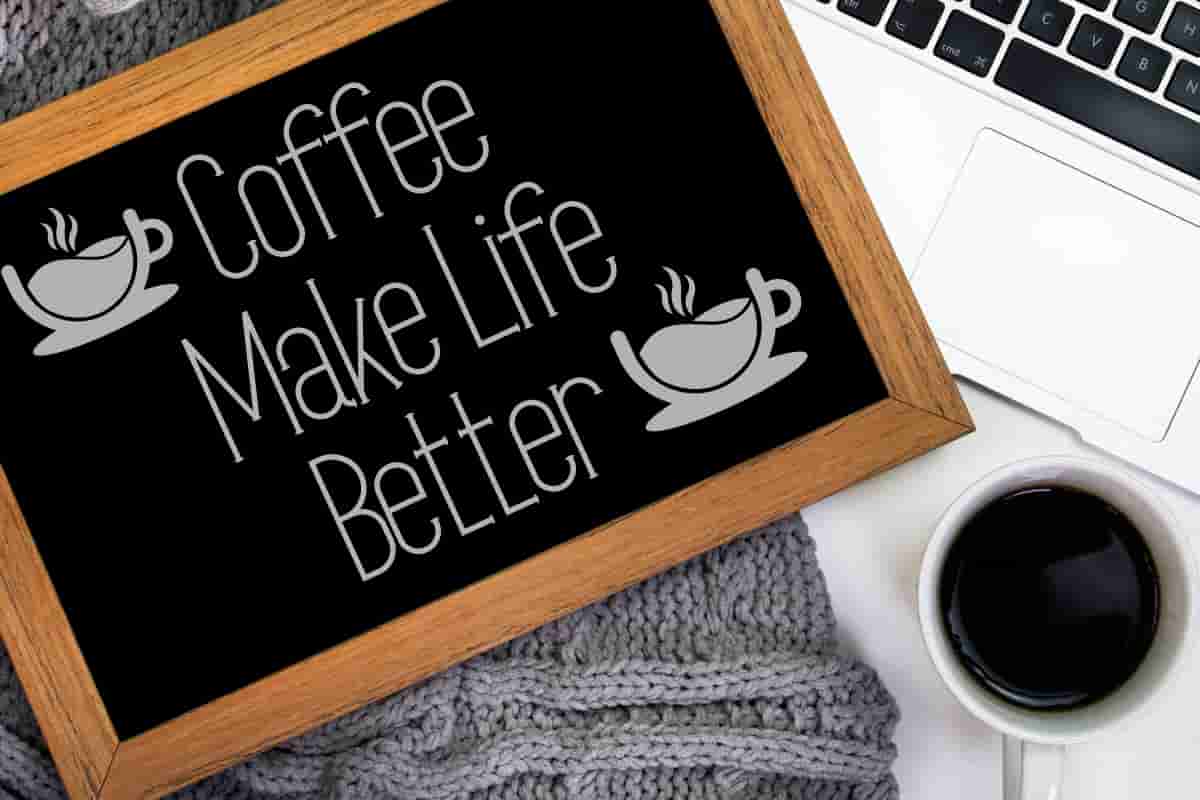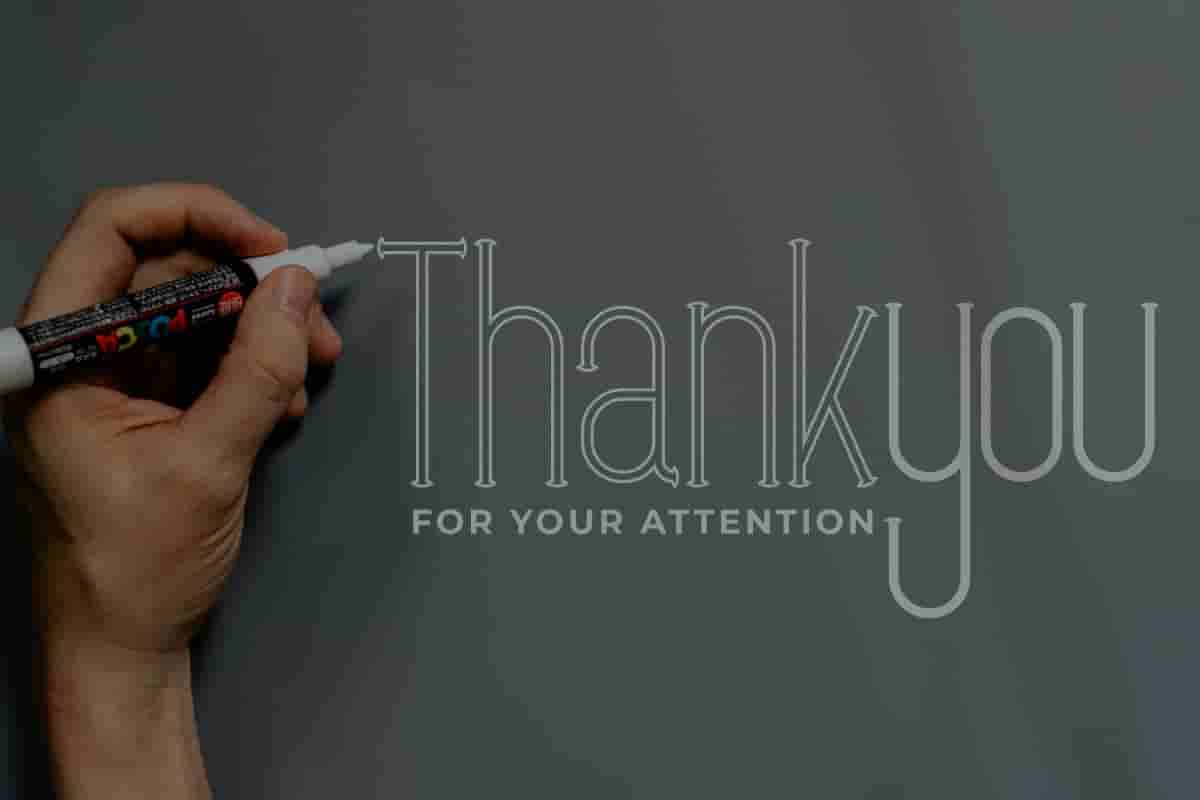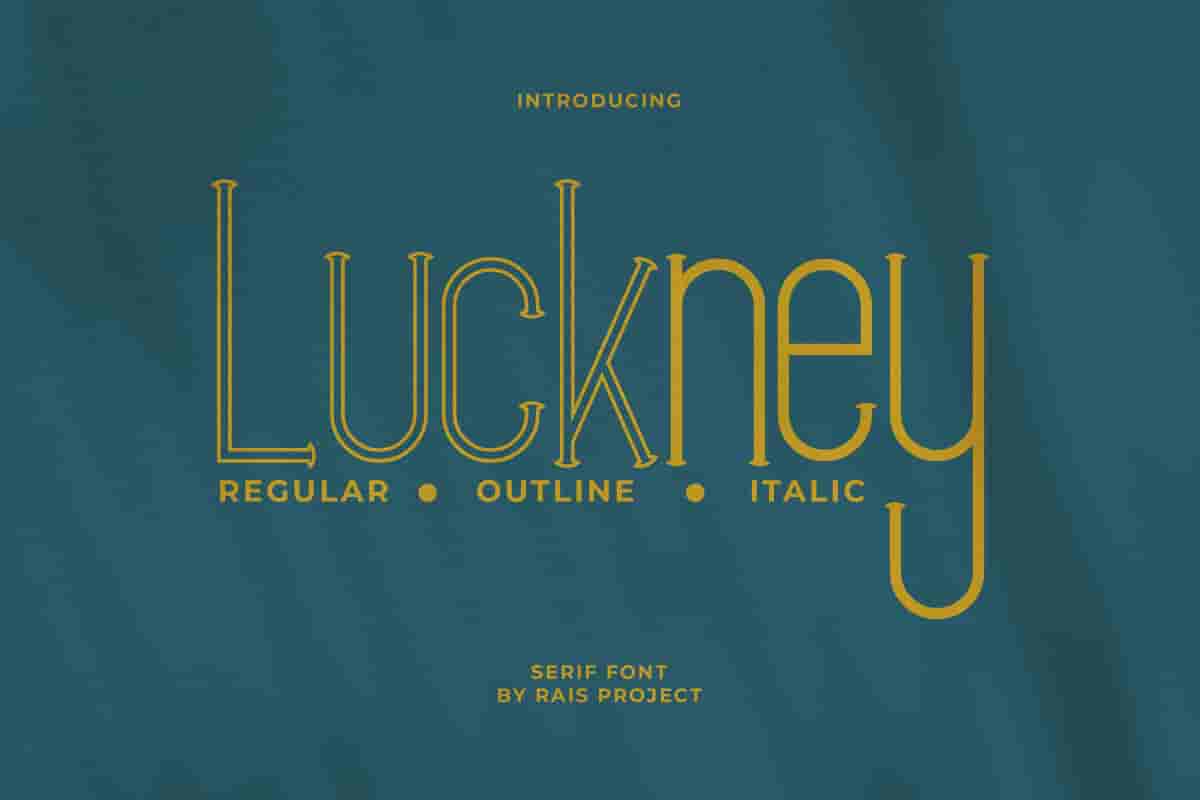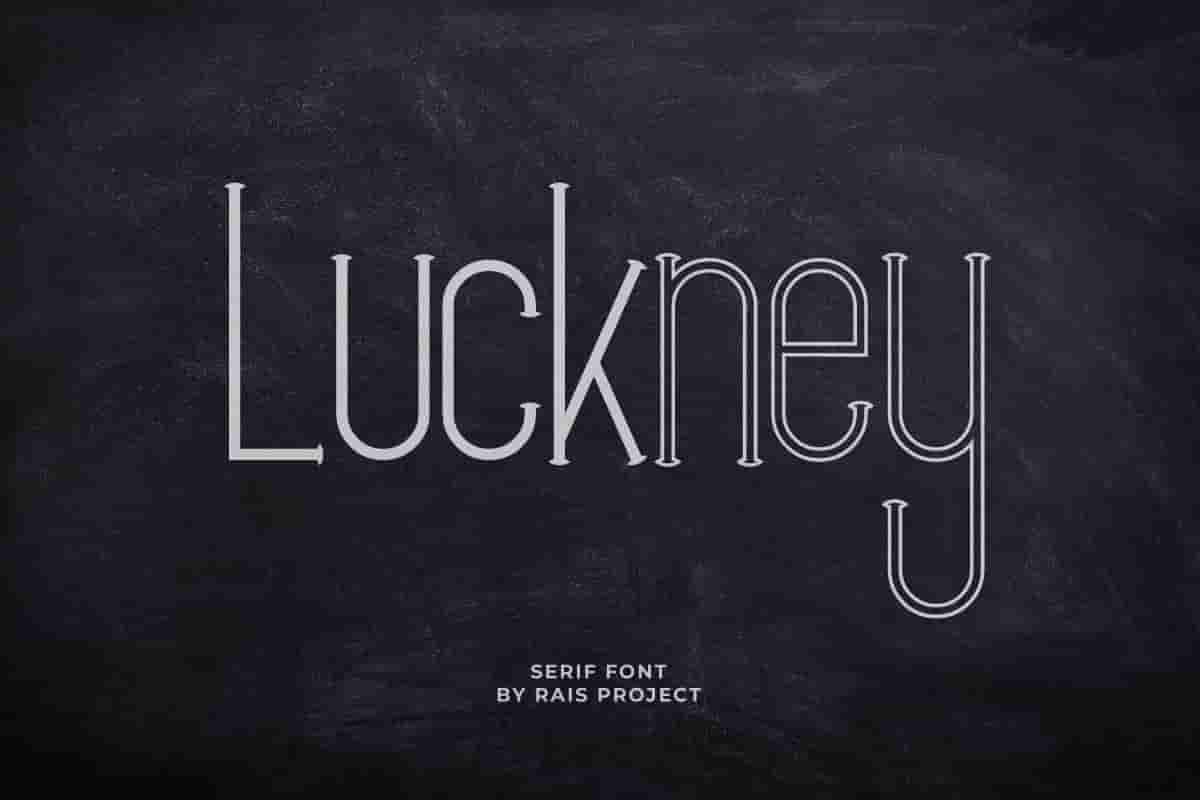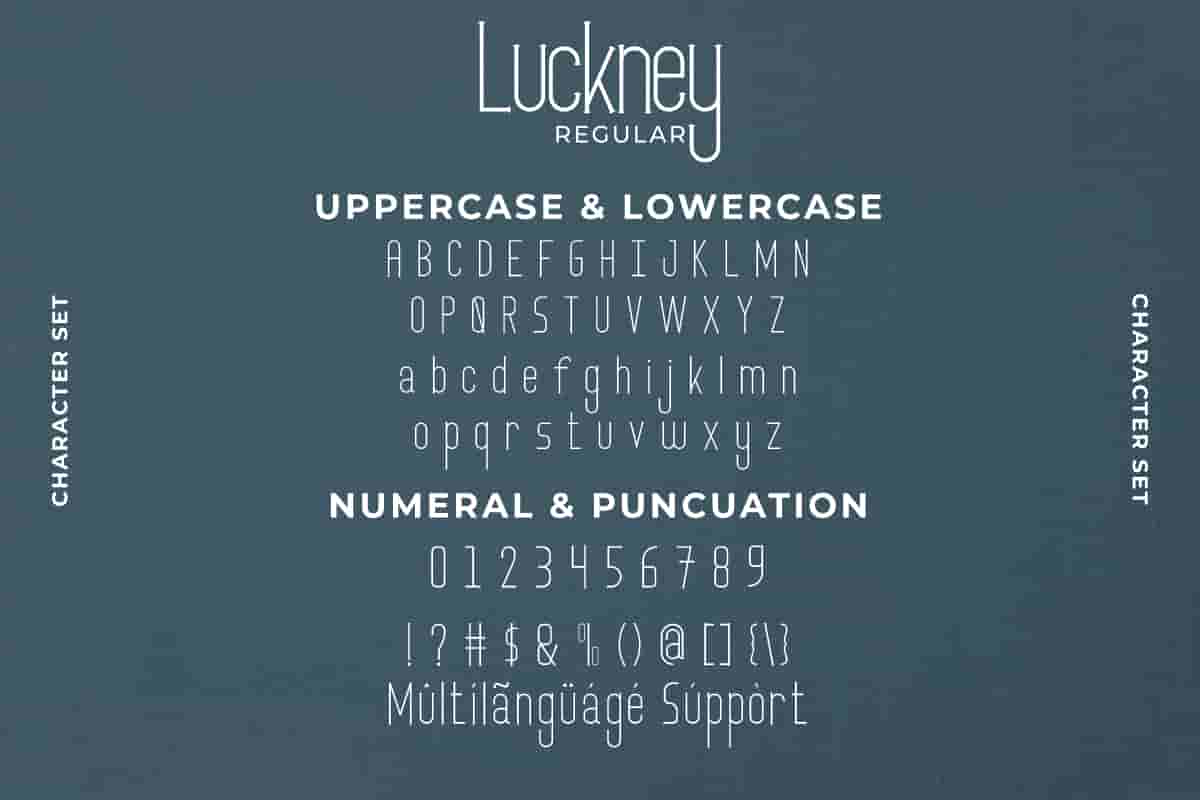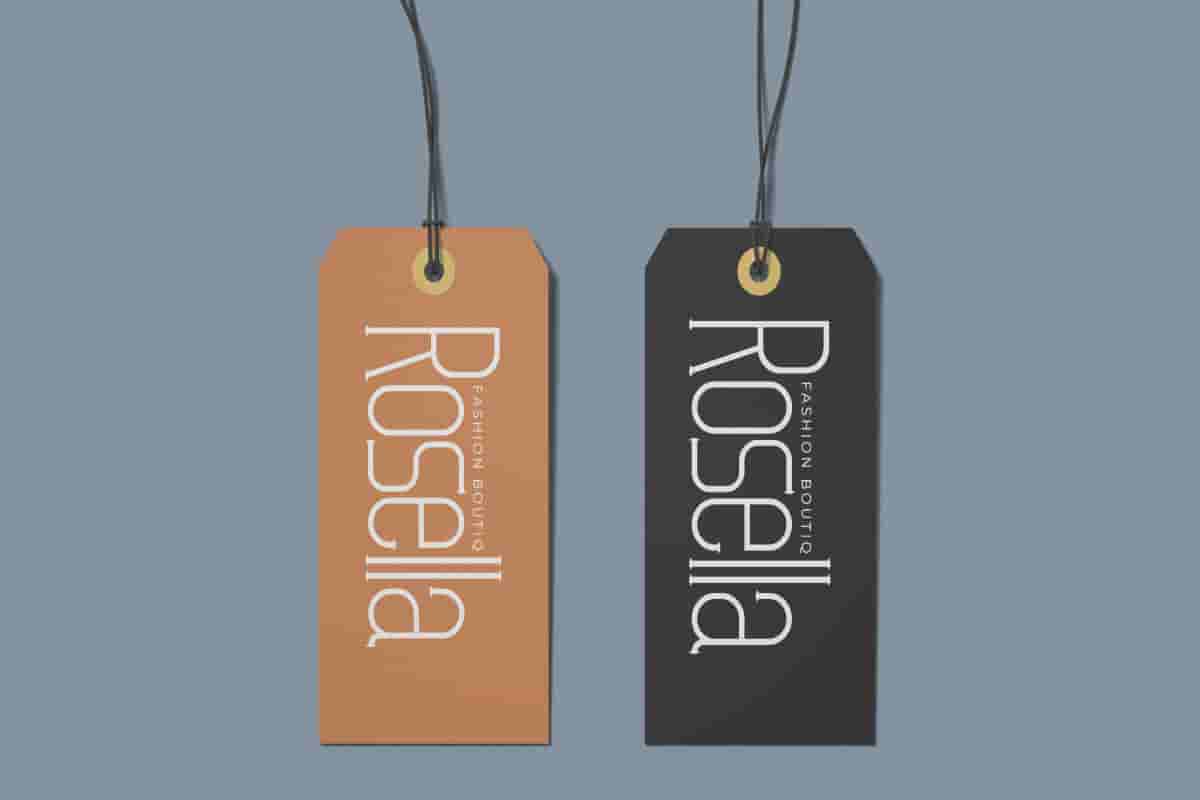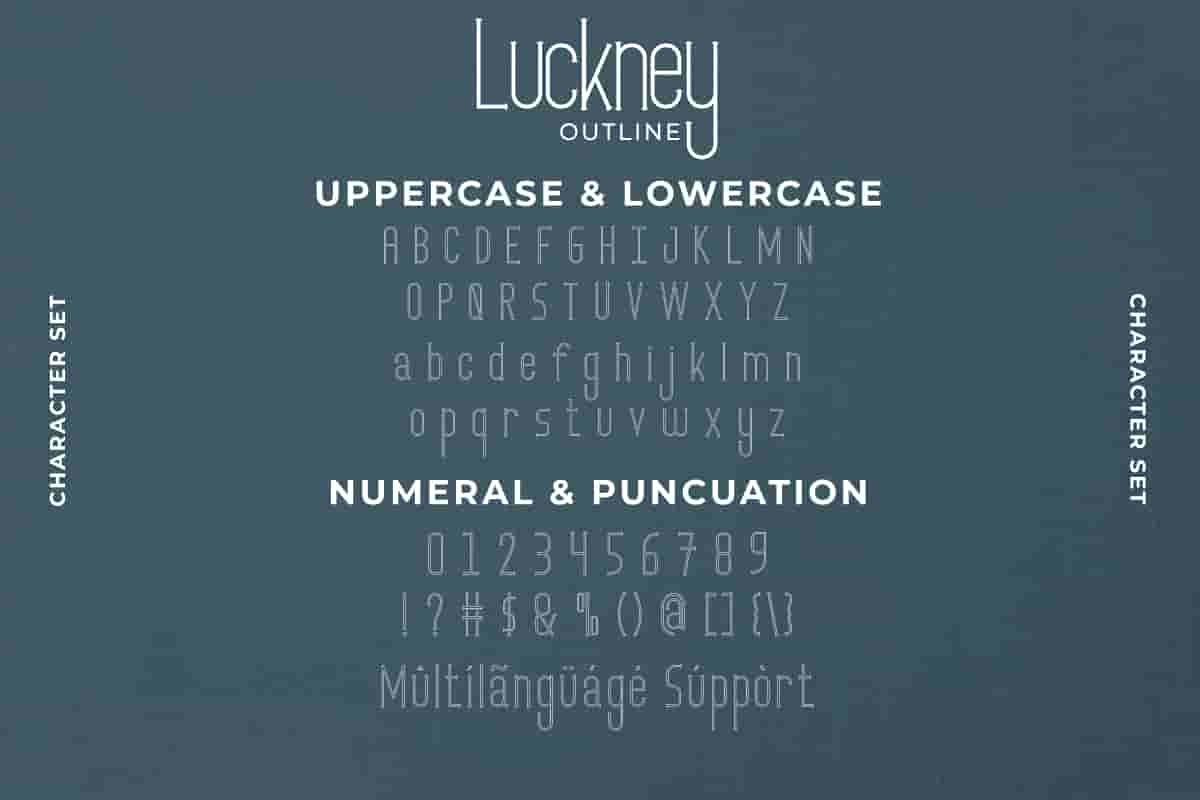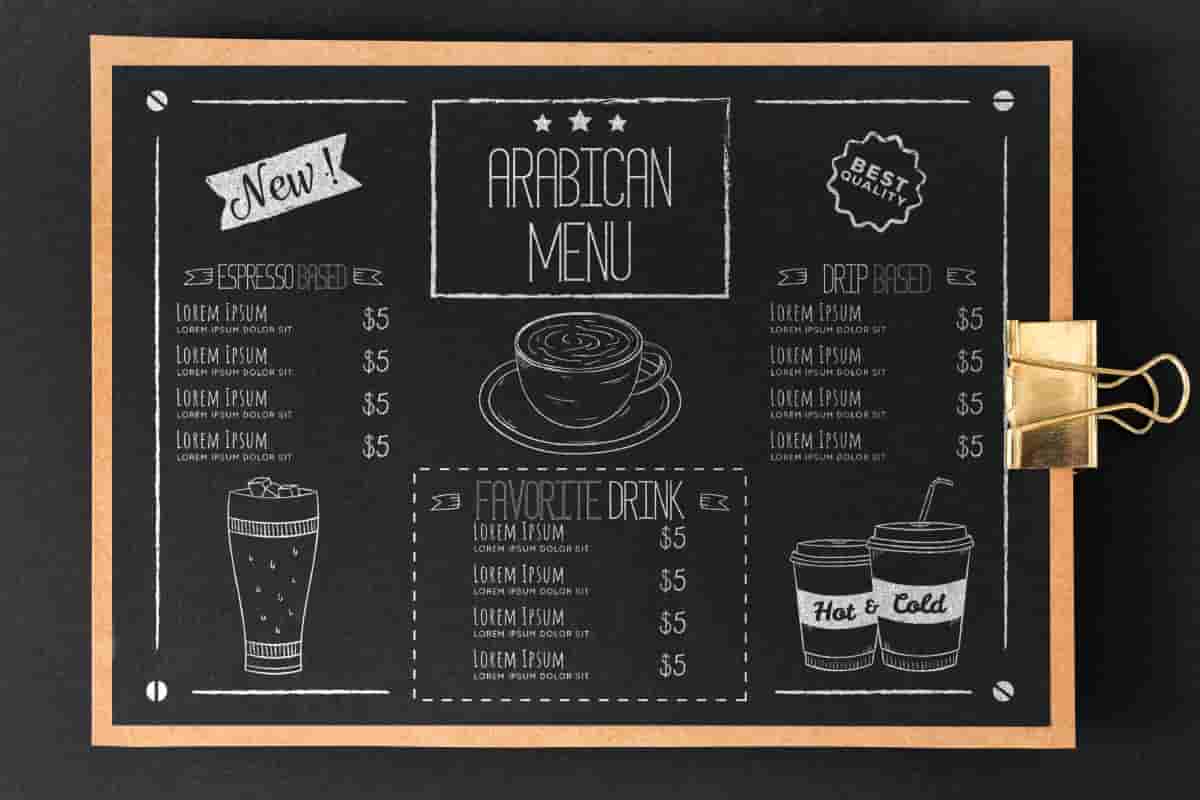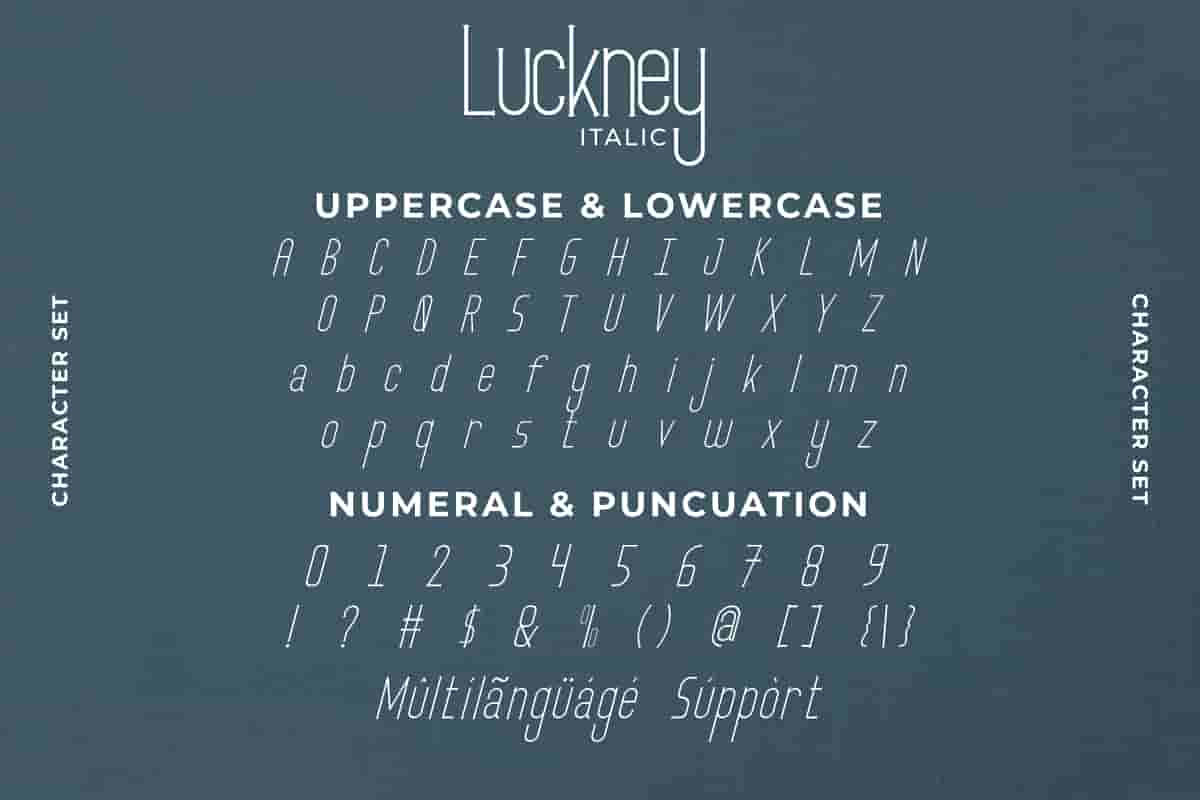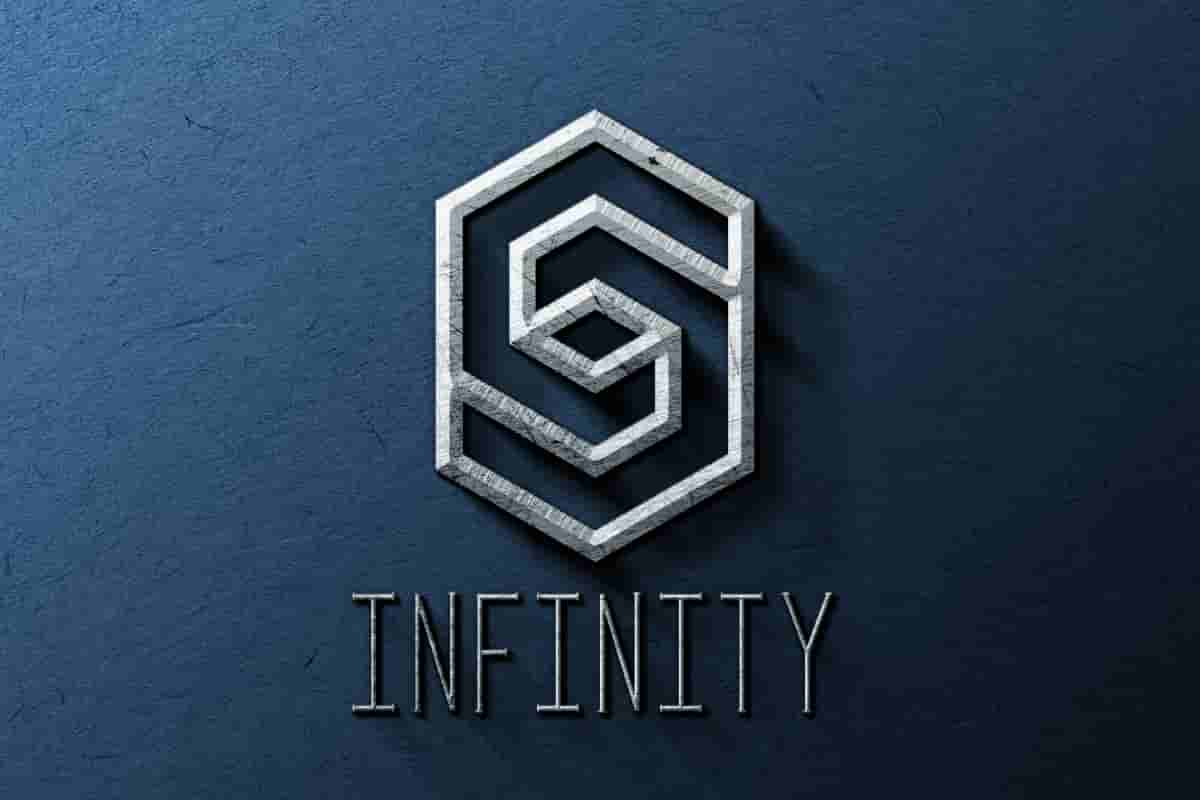
Luckney Sans Serif Font
Luckney Font is a display sans serif font family, designed by Rais Project. The font has three different styles that great for casual, Beauty, Technology, Game, Magazine, Music, Sport etc
Luckney Font remotely made by RaisProject team in Indonesia.The industries for this font Startup, Automotive, Apps, Cosmetic, Beauty, Technology, Game, Magazine, Music, Sport etc Luckney Sans Serif Font includes full set of gorgeous uppercase and lowercase letters ,numerals and Multi languages characters. In total, Luckney has three different styles : Regular, Outline and Italic. On the package You will get: